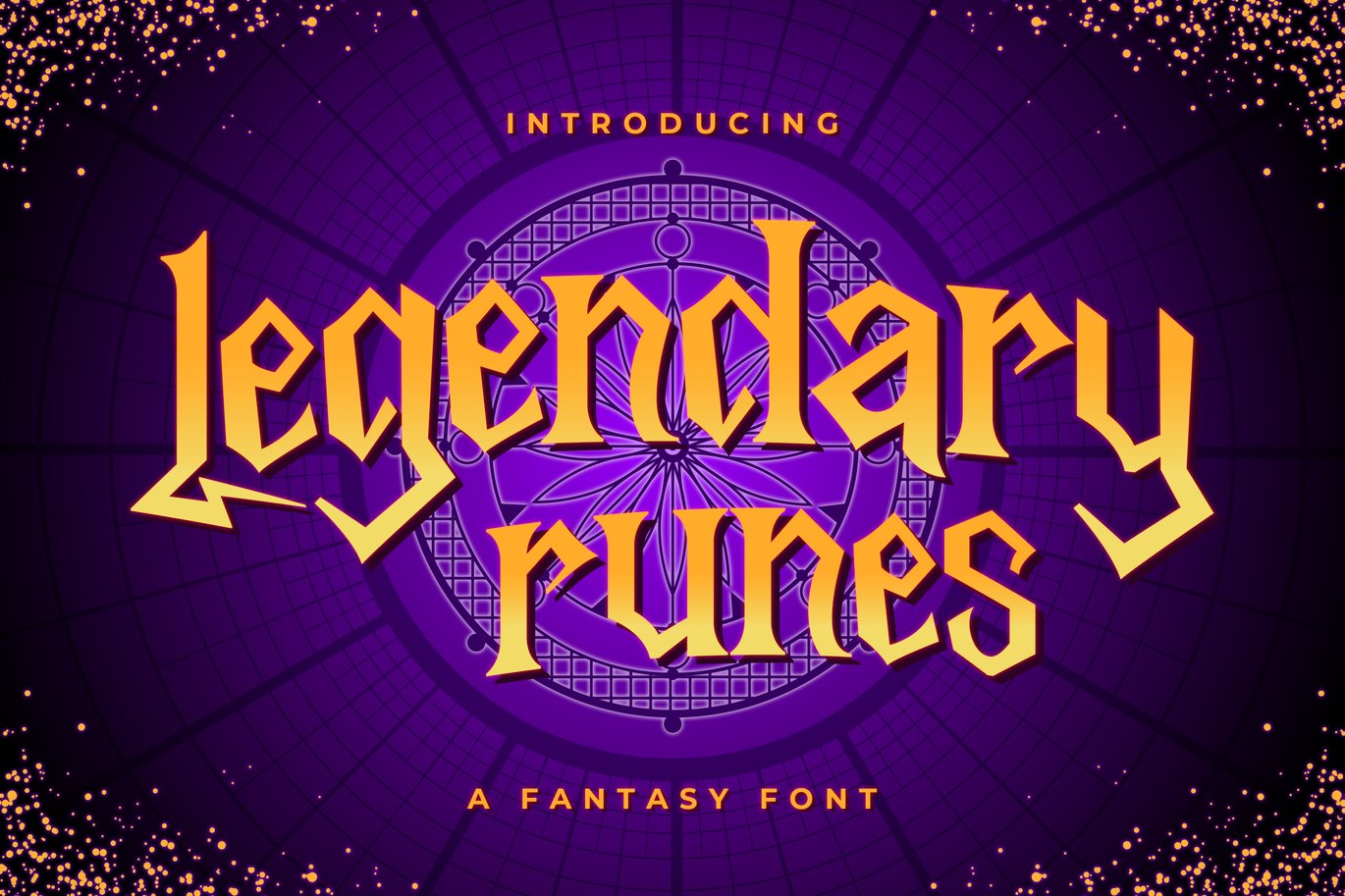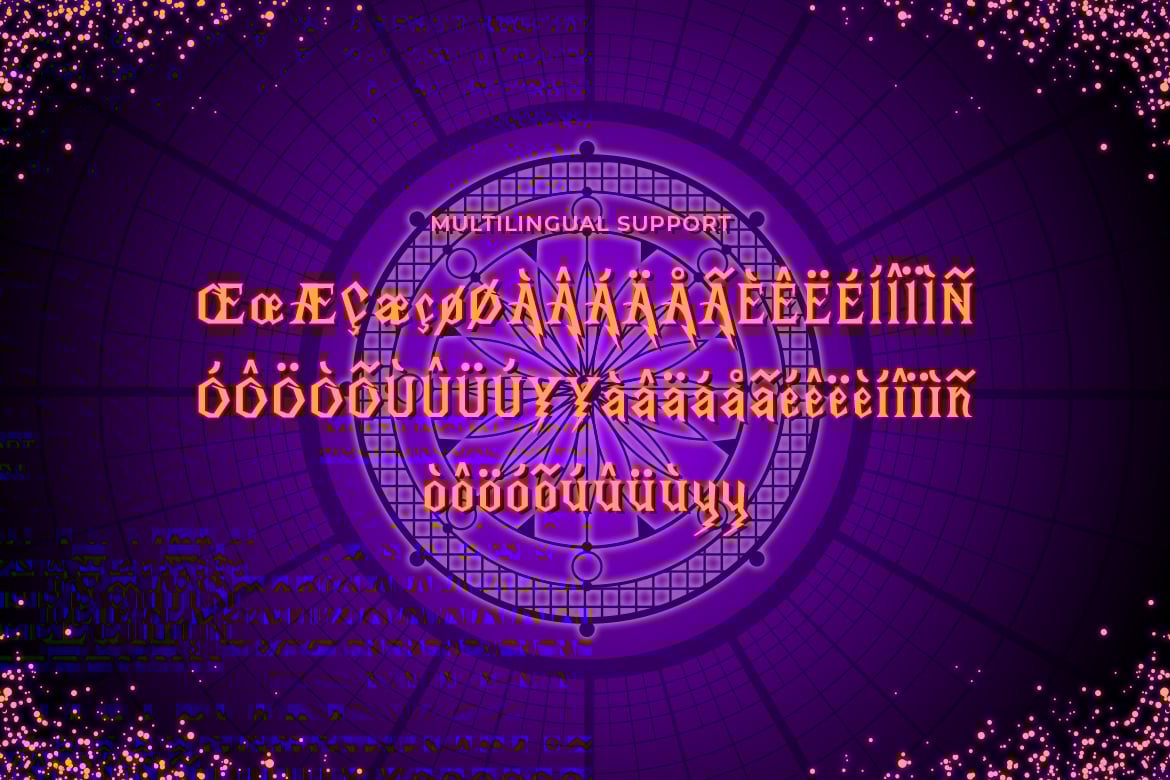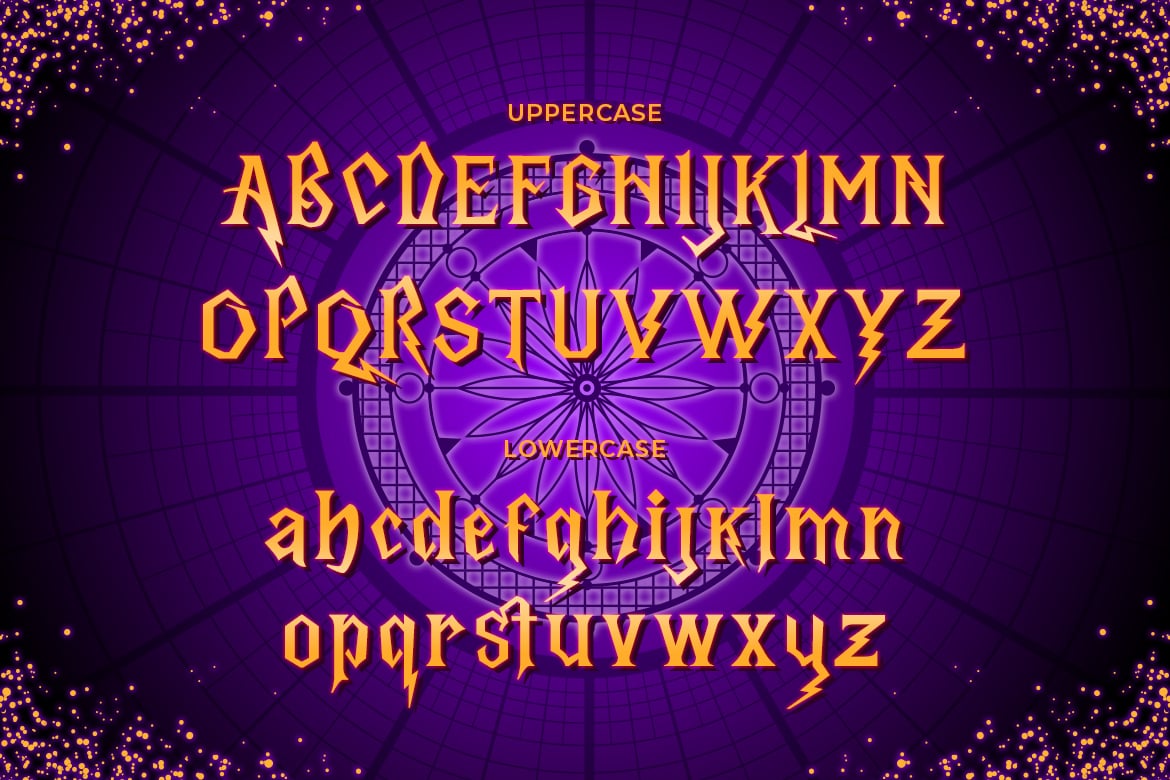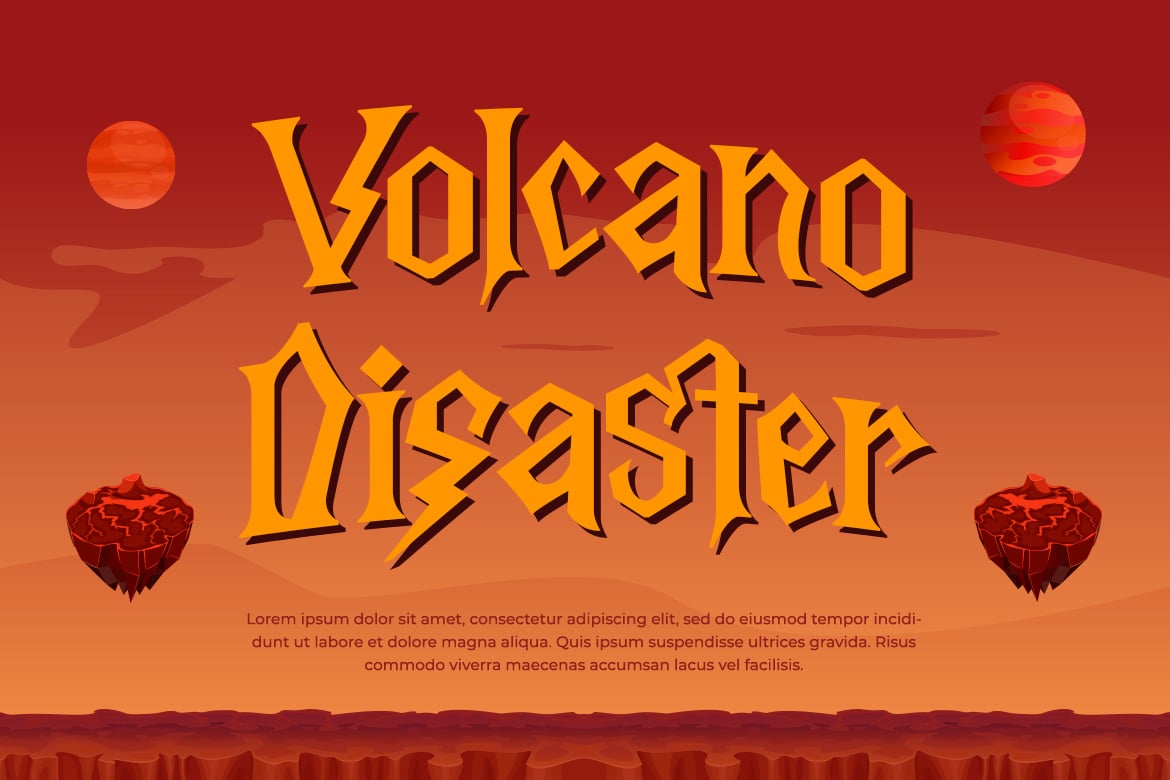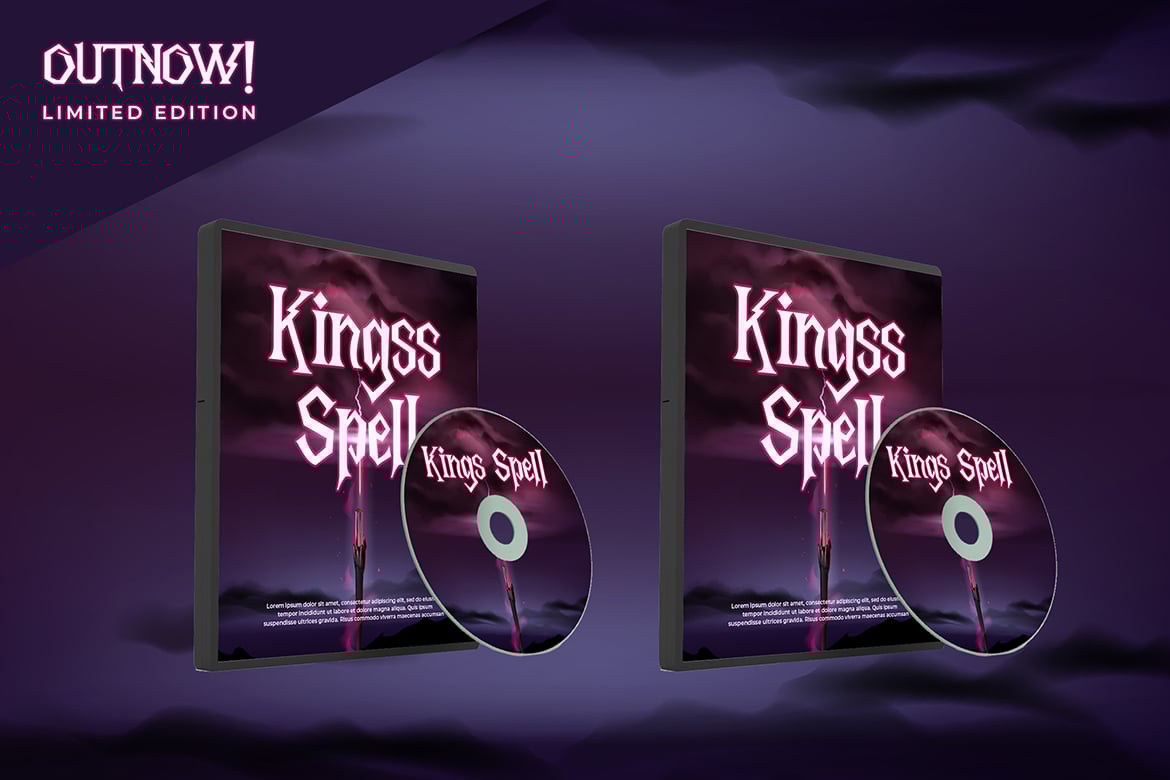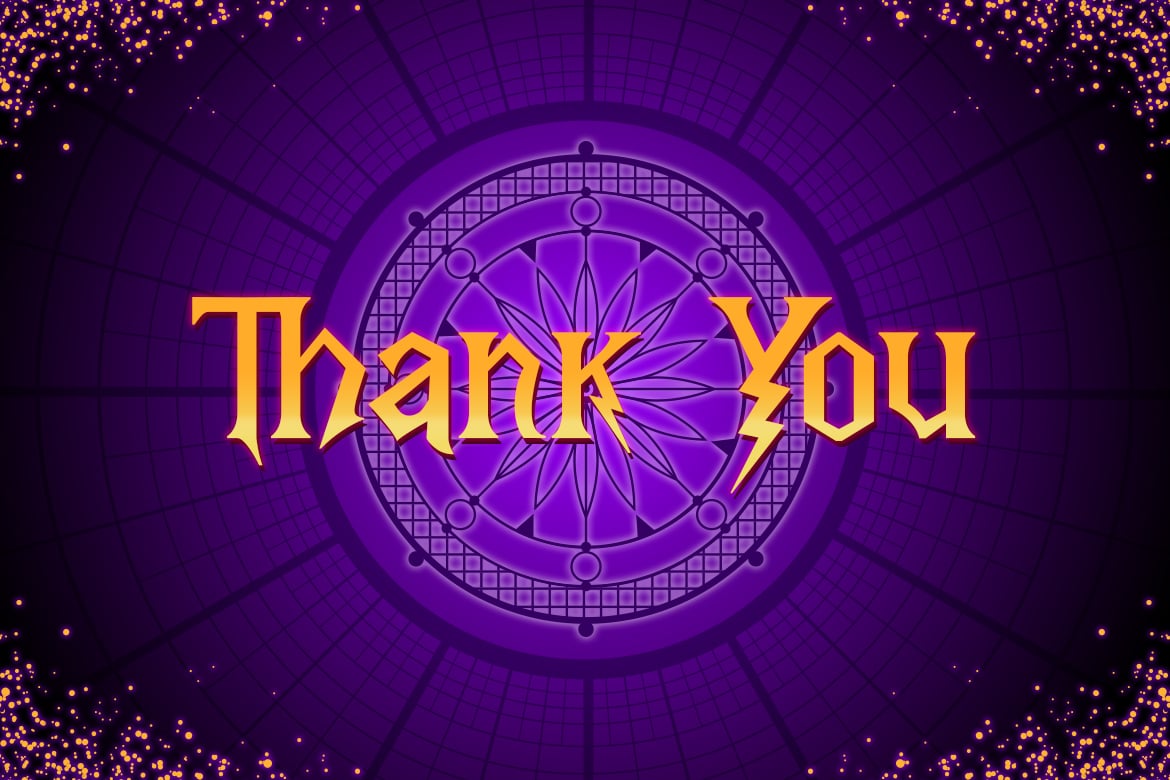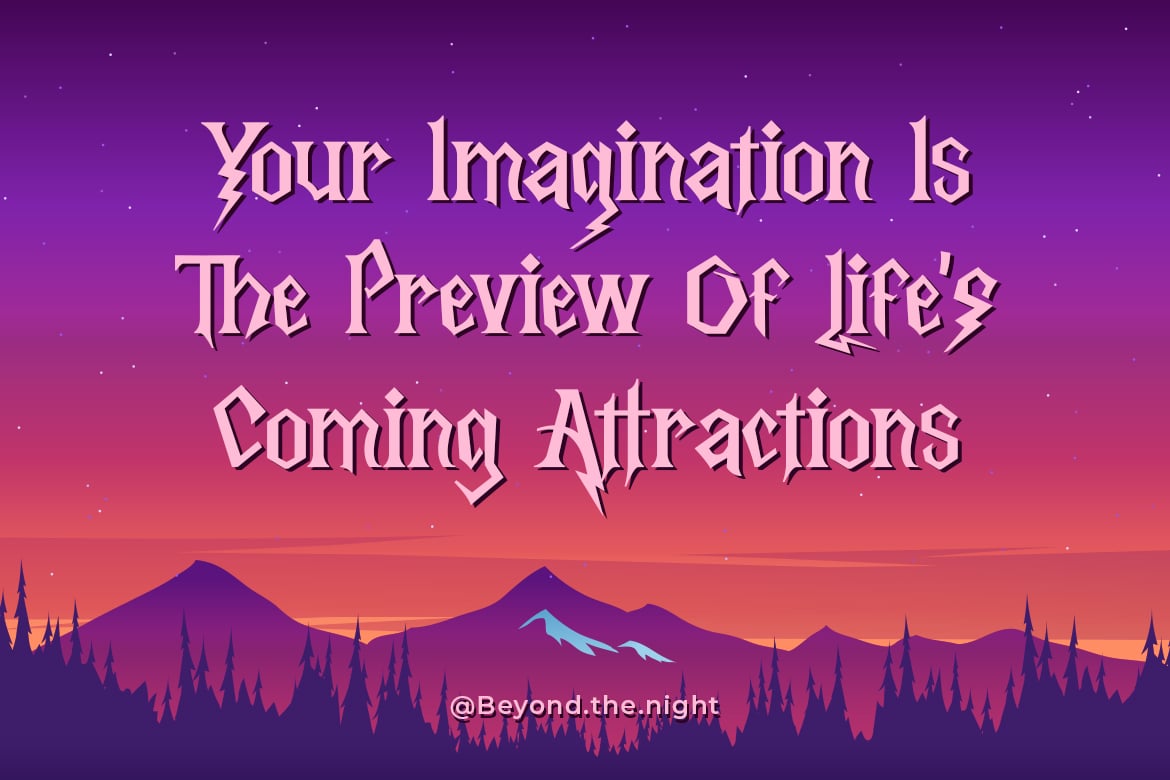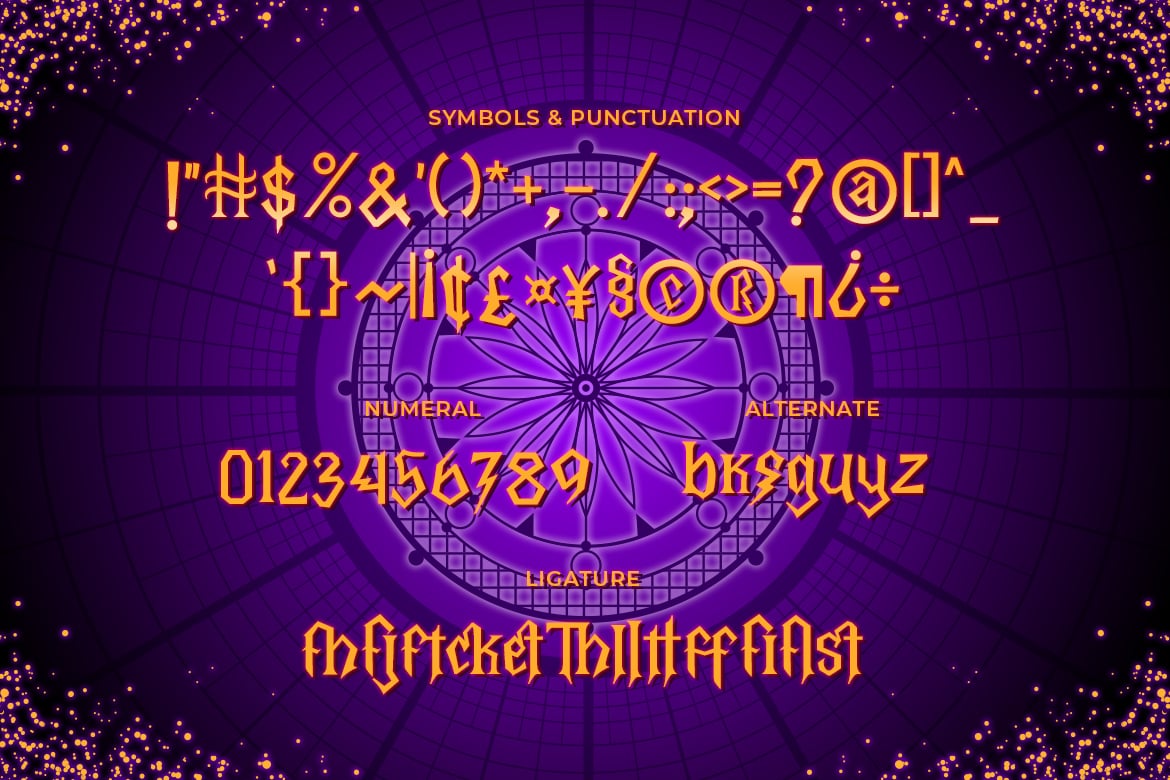
Legendary Runes – Fantasy Font
Legendary Runes is a fantasy font that will immediately take you into a fairytale land.
Magic and a bit sharp, this font will be the ideal choice for kid tales or game design you wish to develop.